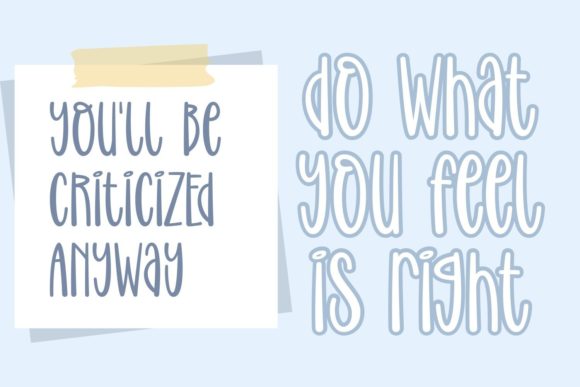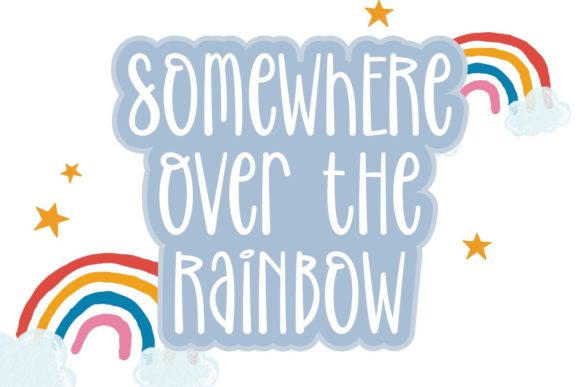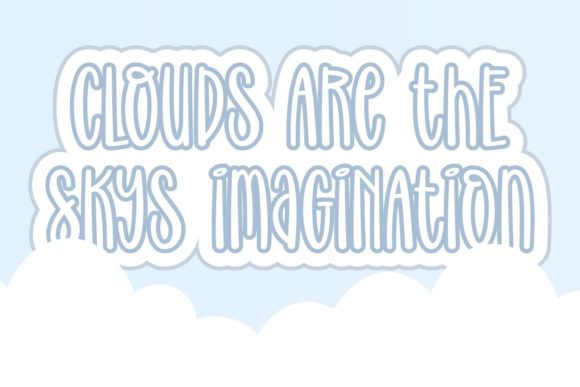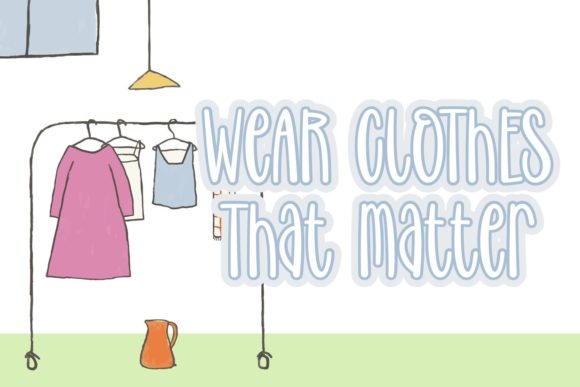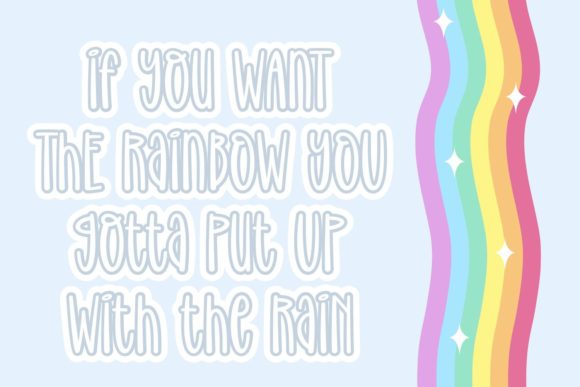
Introducing Fly to Get High Font: Elevate Your Designs with a Playful Twist
Are you on the lookout for a font that adds a dash of playfulness and fun to your creative projects? Look no further than the Fly to Get High Font! This delightful display font is perfect for designers and crafters who want to infuse their work with a sense of whimsy and versatility. In this article, we’ll dive into the world of Fly to Get High, exploring its features, uses, and the endless possibilities it offers for creating stunning designs.
A Versatile Font for Creative Minds
Fly to Get High is more than just a font – it’s a design companion that can elevate your projects to new heights. Its incredibly versatile style makes it suitable for a wide range of applications, from children’s books and activities to stationery art, social media posts, and beyond. Whether you’re a professional designer or a crafter looking for a unique touch, this font is sure to capture your heart.
So, what can you create with Fly to Get High Font? The possibilities are endless! Here are a few ideas to get you started:
• Children’s Books and Activities: Create engaging and interactive stories, puzzles, and games that will delight kids and parents alike. The font’s playful style is perfect for titles, headings, and body text.
• Stationery Art: Add a touch of personality to your stationery, journals, and planners with Fly to Get High. Use it for headings, quotes, and inspirational messages that will make your designs stand out.
• Social Media Posts: Make your social media posts pop with this fun and eye-catching font. Use it for graphics, quotes, and promotional materials that will grab attention and drive engagement.
• Branding and Packaging: Use Fly to Get High to create unique and memorable brand identities, labels, and packaging designs that will set your products apart.
Why Choose Fly to Get High Font?
So, what makes Fly to Get High Font so special? Here are just a few reasons why designers and crafters love this font:
• Unique Style: Fly to Get High boasts a one-of-a-kind design that’s sure to make your projects stand out from the crowd.
• Versatility: This font is incredibly versatile, making it suitable for a wide range of applications and design styles.
• Easy to Read: Despite its playful style, Fly to Get High is easy to read, making it perfect for body text and headings.
• Fun and Playful: This font is designed to add a dash of fun and playfulness to your designs, making it perfect for projects that require a lighthearted touch.
Tips for Using Fly to Get High Font
To get the most out of Fly to Get High Font, here are a few tips to keep in mind:
• Experiment with Sizes: Play around with different font sizes to create visual interest and hierarchy in your designs.
• Pair with Other Fonts: Combine Fly to Get High with other fonts to create unique and interesting typography.
• Use for Headings and Titles: Take advantage of the font’s playful style by using it for headings and titles that need to make a statement.
In conclusion, Fly to Get High Font is a versatile and playful display font that’s perfect for designers and crafters looking to add a touch of whimsy to their projects. With its unique style, ease of use, and endless possibilities, this font is sure to become a favorite in your design toolkit. So why wait? Download Fly to Get High Font today and start elevating your designs to new heights!